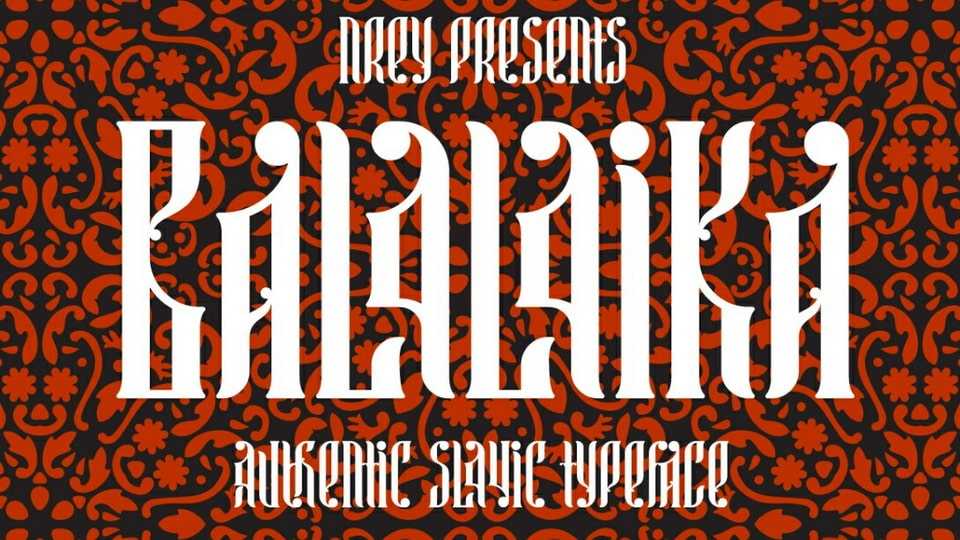
Balalaika Font › Fontesk
Download Balalaika font, a decorative display typeface inspired by ethnic Slavonic style which combining classic typography with awesome features bring classic touch on this culture. Balalaika font is suitable for product packaging, labeling, logo, classic shop, ethnic shop, titles, etc.